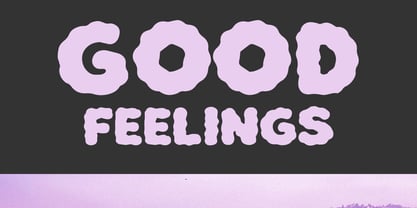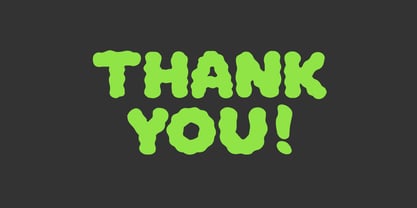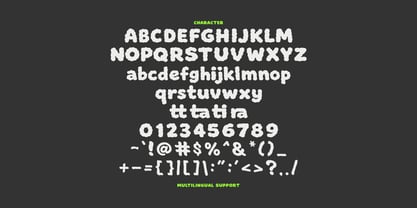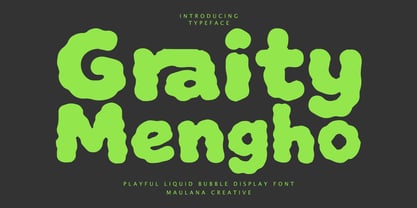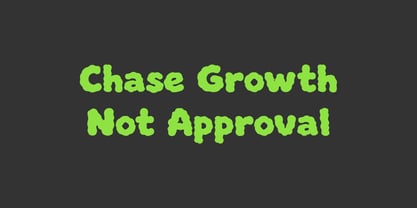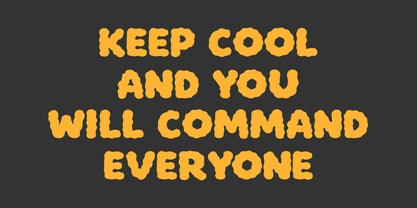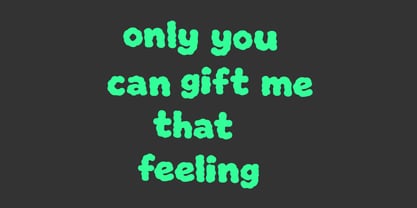
MC Graity Mengho
by Maulana Creative
The MC Graity Mengho Font Family was designed by Gilang Maulana and published by Maulana Creative. MC Graity Mengho contains 1 styles. More about this family
Graity Mengho is a vibrant and energetic display font that captures the fluid motion of liquid and the soft, rounded edges of bubbles. Its unique, wobbly silhouette gives it a hand drawn, organic feel that is perfect for bold headlines, creative branding, and youthful designs. Whether you're working on a poster, product packaging, or digital content, this font adds a splash of fun and a modern, trippy aesthetic to any project.
Designers: Gilang Maulana
Foundry: Maulana Creative